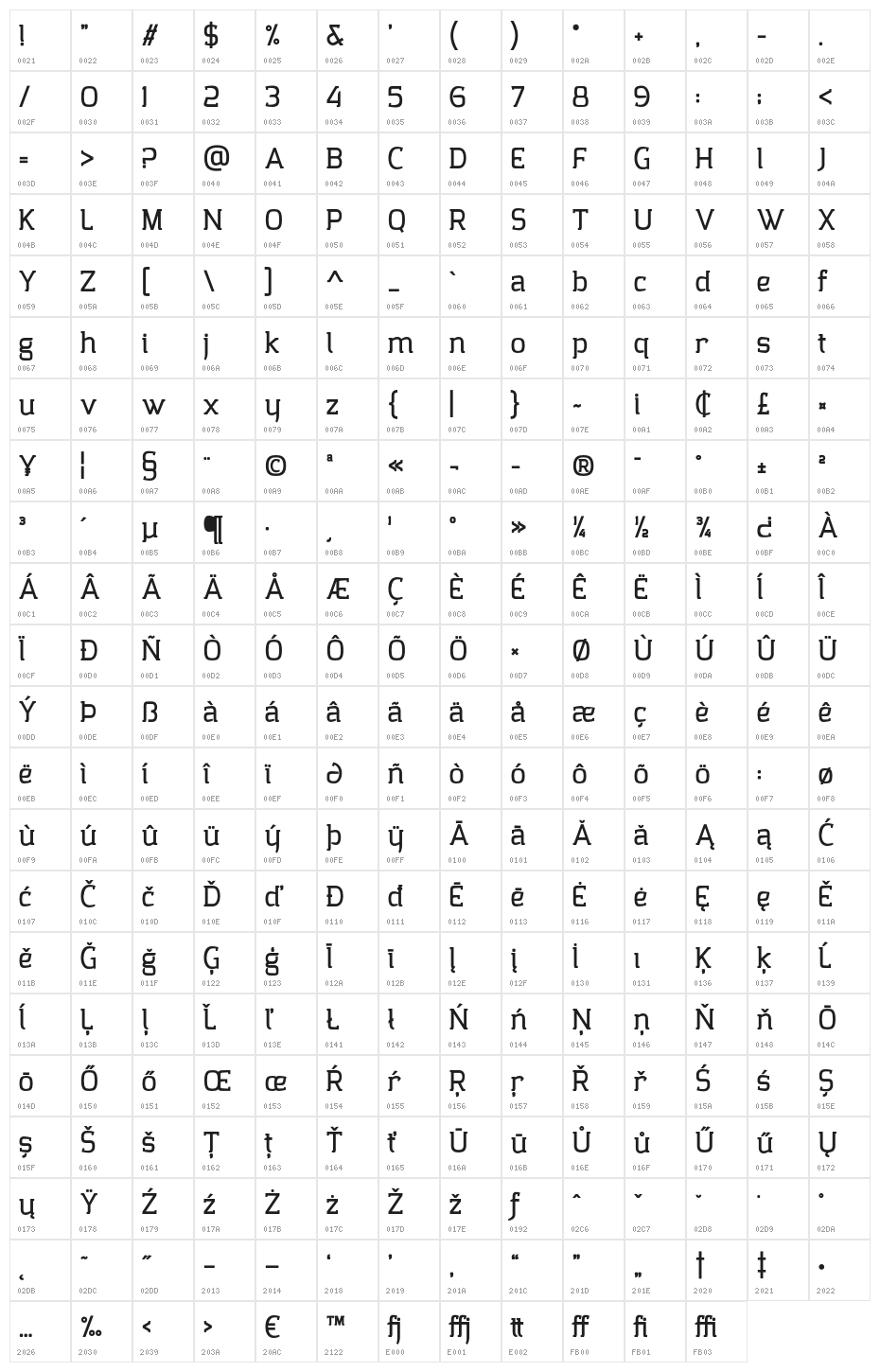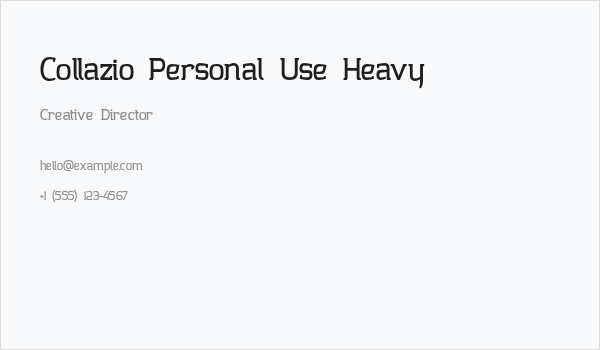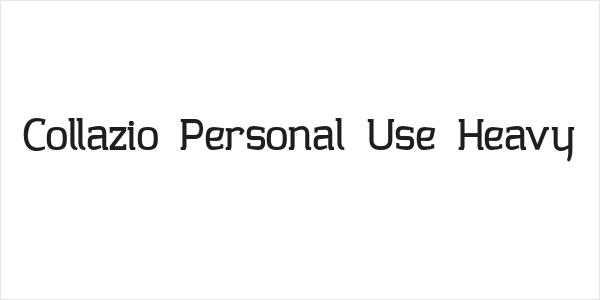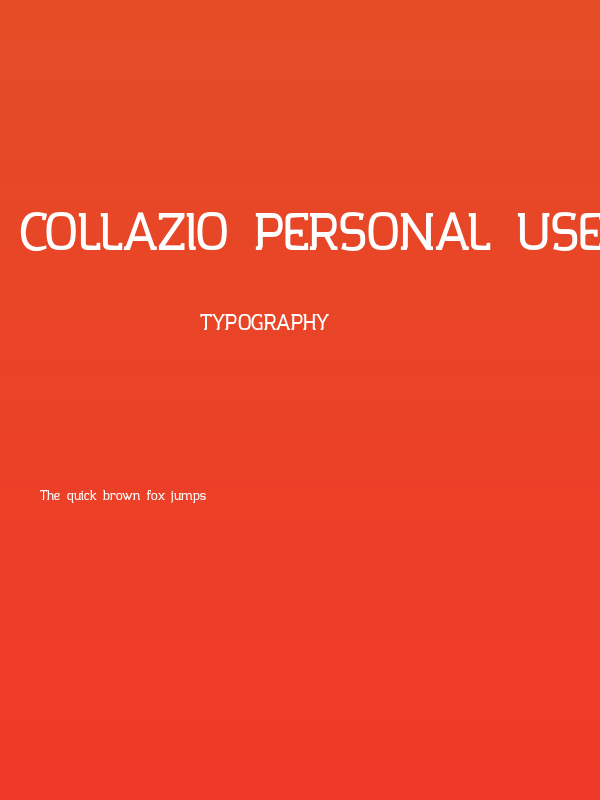
Collazio Personal Use Heavy Font
Collazio Personal Use Heavy Description
This font features a bold and robust design with a modern flair. The characters are well-defined with a slight curvature that adds a touch of elegance. The uppercase letters exhibit a strong presence, making them suitable for impactful headlines. The lowercase letters maintain a consistent style, ensuring readability and cohesion. The numerals are clear and distinct, while the special characters are crafted to match the overall aesthetic. The font's design is versatile, making it suitable for various applications that require a bold and modern look.
| Proposed Projects | Ideal for branding, advertising, posters, and web design projects that require a bold statement. |